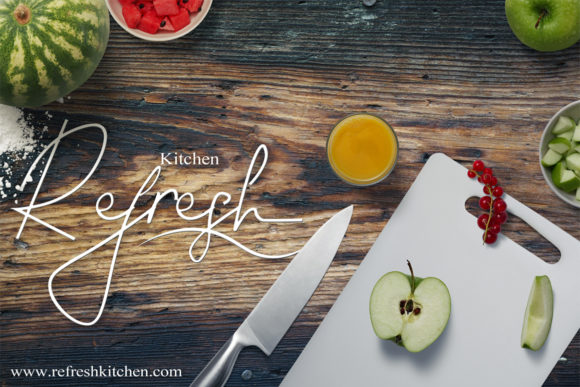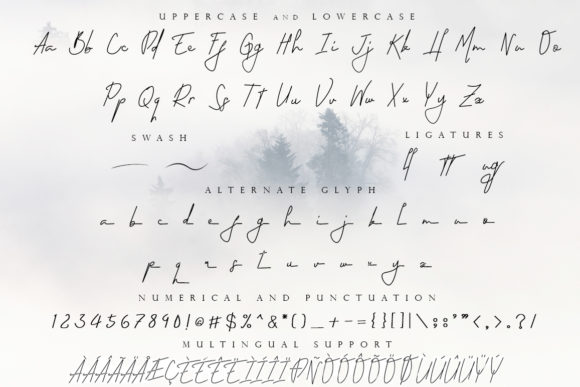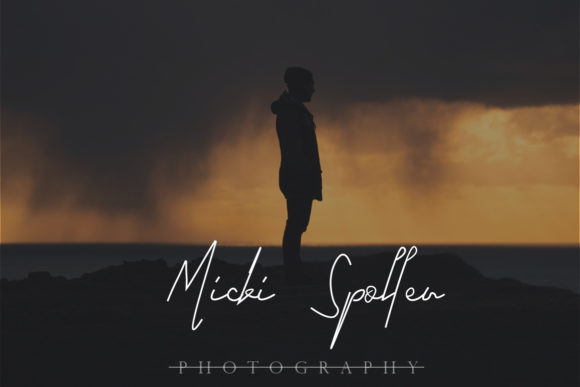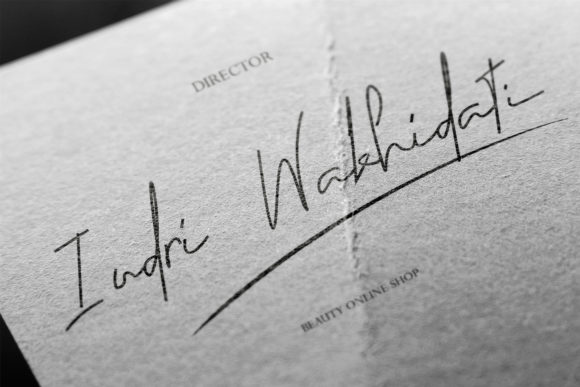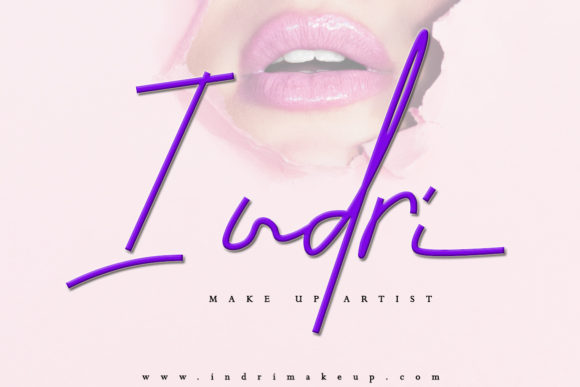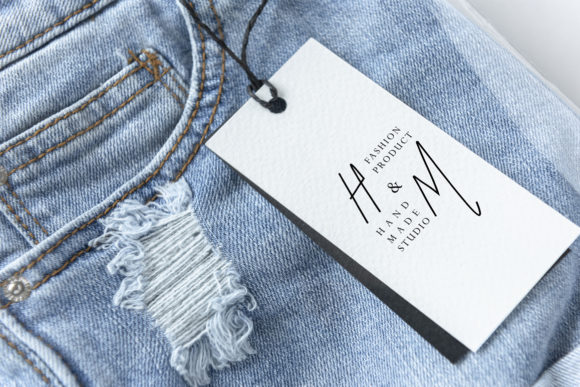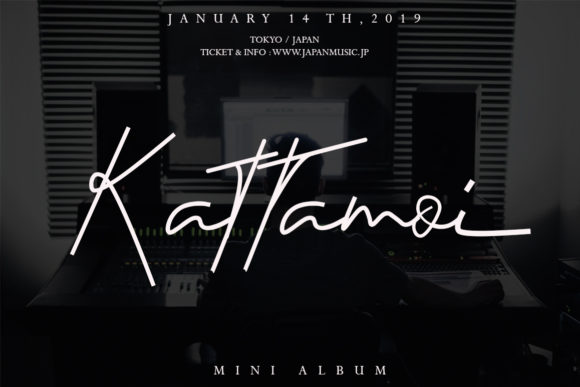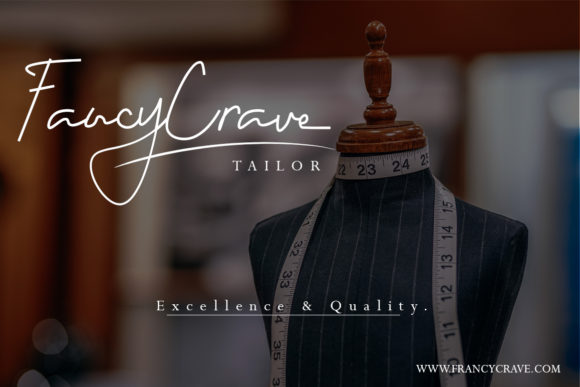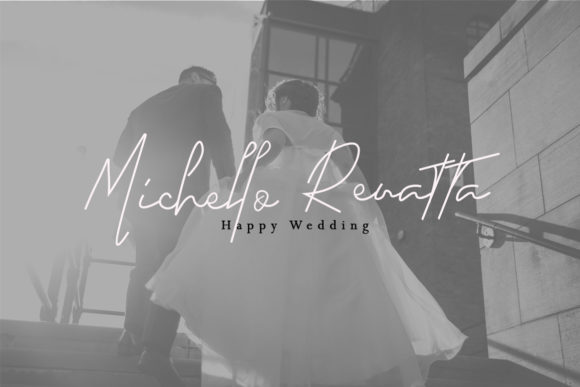
Permata Font
About Permata Font
The Permata is a modern handwritten font. It includes beautiful swashes and is great for logotype, branding designs, digital lettering art, t-shirts, posters, and much more!